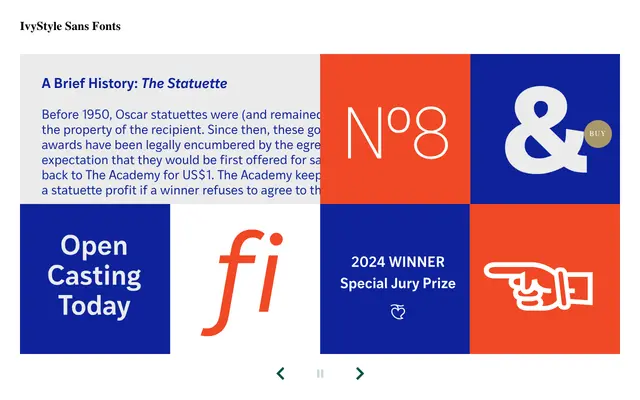
IvyStyle Sans
A narrow humanist sans with a constructed, modern character and sufficient quirk to keep it from feeling anonymous.
Clean lines and open apertures give it strong reading comfort across editorial and branding contexts, while its narrow proportions make it a practical space-saver without sacrificing personality. The family runs across five weights from Thin to Bold, each with a matching italic, and variable fonts are included with the full package. It is designed to pair with IvyStyle Typewriter for cohesive typographic systems.
The foundry explicitly references the humanist genre, and the design combines constructed, modern geometry with the open apertures and warm detailing characteristic of humanist sans-serifs.